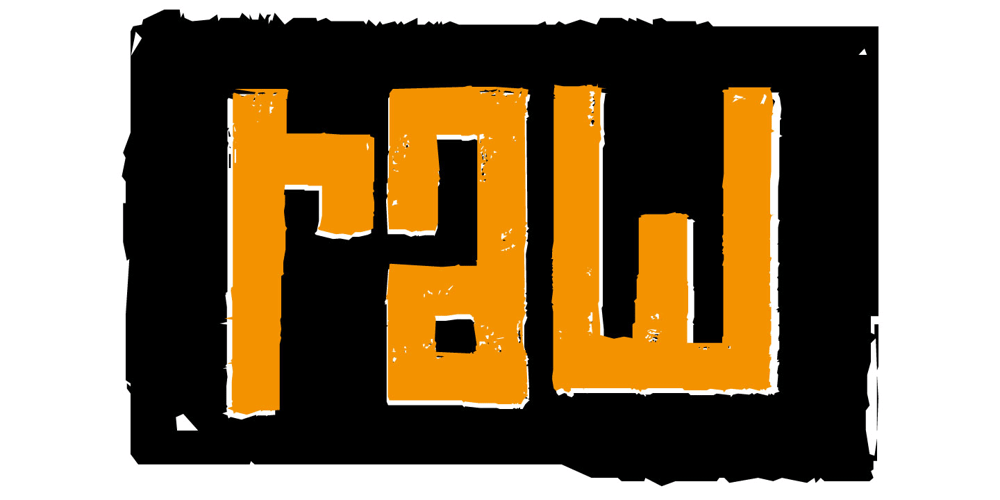
Raw Street Wall Font Family was designed by Manuel Viergutz and published by Volcano Type. Raw Street Wall contains 2 styles and family package options. The typeface Raw Street Wall is designed for the Typo Graphic Design font foundry from 2011–2017 by Manuel Viergutz. A playful display type for headlines with a street-art graffiti-style by hand. Rough-look plus state-of-the-art automatic generated OpenType-features (like contextual alternates (calt)). 567 glyphs with extras like emoticons/icons, arrows, dingbats, symbols, geomatric shapes, catchwords and many alternative letters. Multilingual support with 27 languages. Have fun with this font & try the DEMO-FONT (with reduced glyph-set) FOR FREE! Example of use It’s your turn … for example everywhere where it makes sense. Maybe for use in magazines, posters, headlines and advertisement, plus as webfont for decorative headlines. Technical Specifications ■ Font Name: Raw Street Wall ■ Font Weights: Regular + DEMO (with reduced glyph-set) ■ Font Category: Display for headline size ■ Font Format: .otf (OpenType Font for Mac + Win) + .ttf (TrueType Font) ■ Glyph Set: 567 glyphs ■ Language Support: 27: Afrikaans, Albanian, Catalan, Croatian, Czech, Danish, Dutch, English, Estonian, Finnish, French, German, Hungarian, Italian, Latvian, Lithuanian, Maltese, Norwegian, Polish, Portugese, Romanian, Slovak, Slovenian, Spanisch, Swedish, Turkish, Zulu ■ Specials: Extras like emoticons/icons, arrows, dingbats, symbols, geomatric shapes, catchwords and many alternative letters plus OpenType-Features. ■ Design Date: 2011–2017 ■ Type Designer: Manuel Viergutz ■ License: Desktop license, Web license, App license, eBook license, Server license